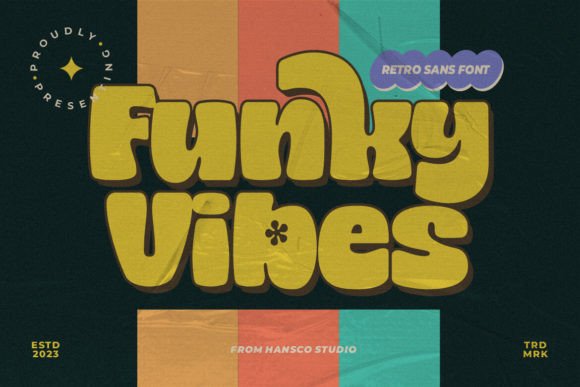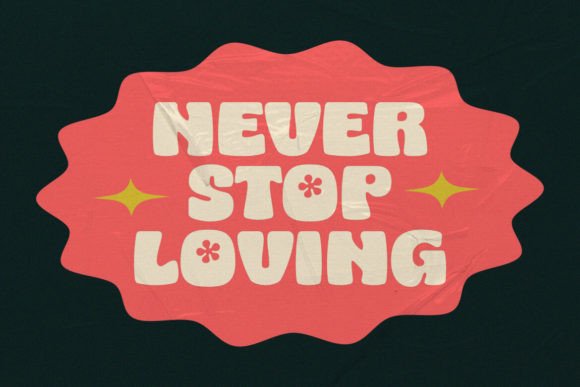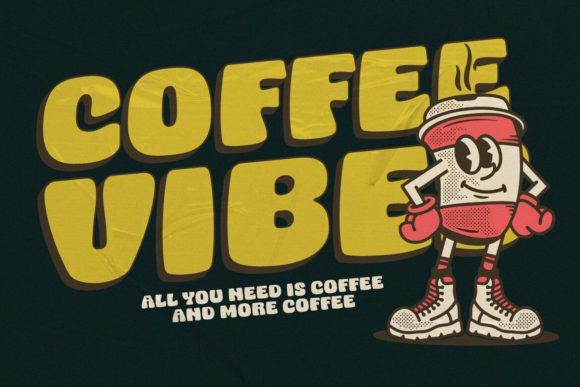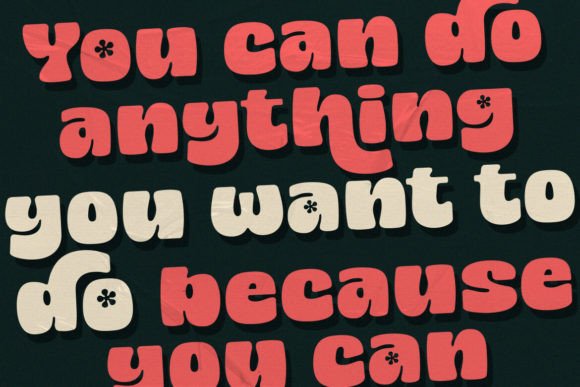
Funky Vibes Font: A Groovy Display Font for Retro Designs
About the Funky Vibes Font
We are excited to introduce Funky Vibes Font, a must-have typeface for any serious designer. Funky Vibes is a retro psychedelic font style with rounded touch. Equipped with all complete characters ranging from uppercase letters, lowercase letters, numbers, punctuation marks and multi-lingual support, this font is ready to be used in any project.
Funky Vibes excels in headline applications, short text blocks on posters or packaging, and branding elements where a retro, playful aesthetic is desired. Its rounded forms and slightly uneven character weights make it less suitable for body copy or long-form text; readability suffers at smaller sizes. Avoid using it in user interfaces (UI) or situations requiring high legibility.
The font’s core personality is undeniably bold and playful, with a touch of 70s retro cool. It works best for brands targeting younger demographics or those with a vintage-inspired identity. Think music festivals, clothing lines with a retro vibe, or playful food and beverage brands.
Pairing Funky Vibes with a clean sans-serif like Open Sans for body text provides a strong contrast and enhances readability. For a more cohesive retro feel, consider pairing it with a geometric sans-serif such as Futura or a classic serif like Garamond, to add a sophisticated counterpoint to its playful energy.
Funky Vibes Font Usage Examples
Funky Vibes Font Example